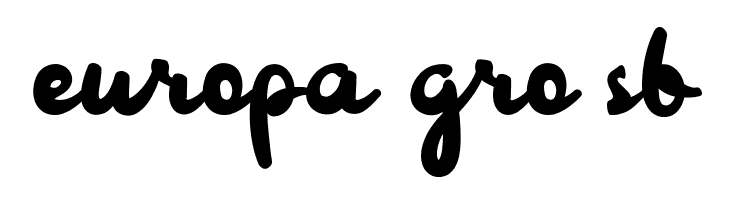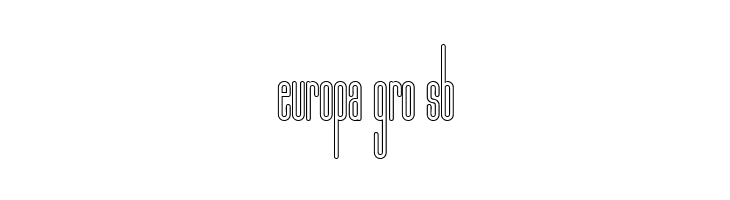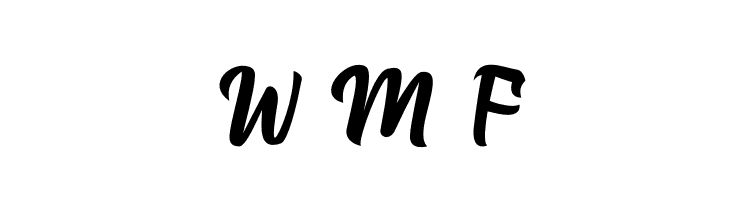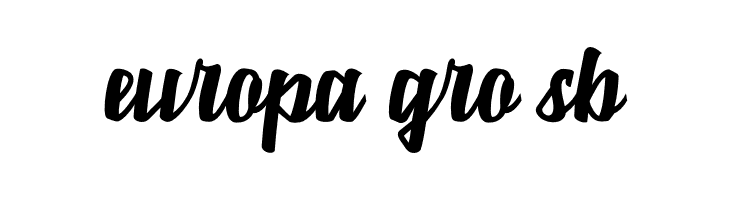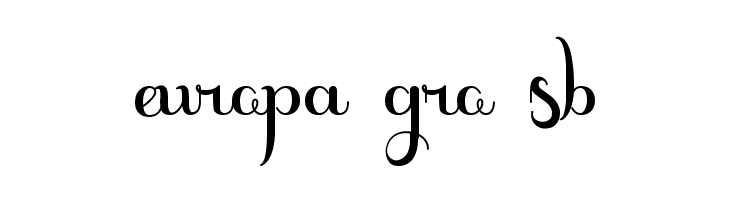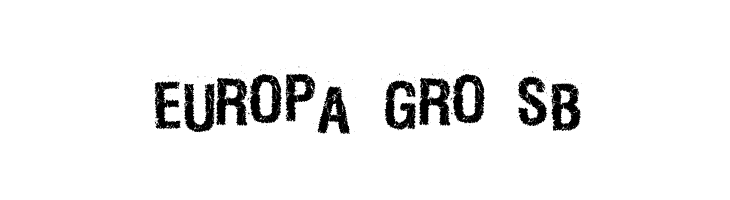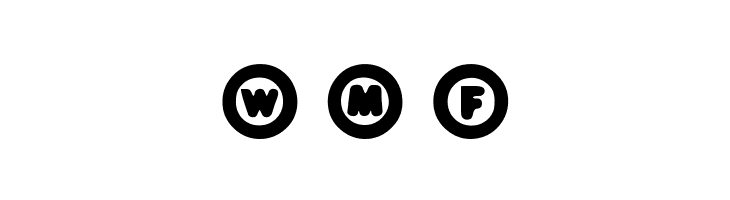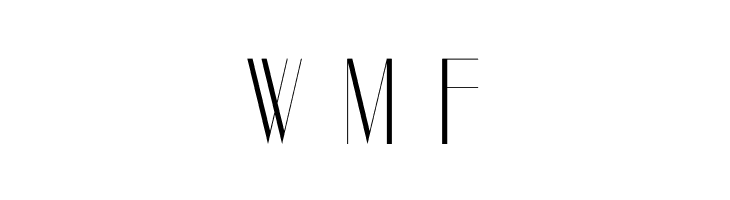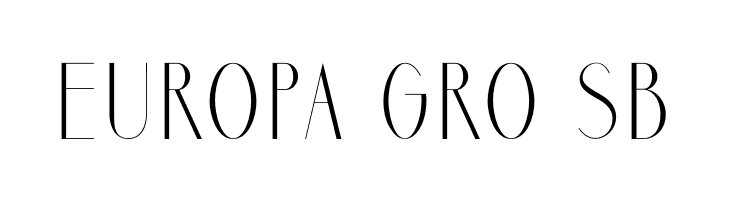
A bold, rounded font with characters enclosed in thick circular outlines.
A tall, narrow, and modern font with a clean, minimalist aesthetic.
A modern, condensed outline font with a sleek, double-line structure.
A playful, handwritten font with rounded edges and a casual, approachable style.
A bold, flowing script font with an elegant, handwritten style.
A bold, textured font with a rugged, distressed appearance.
A bold, flowing script font with elegant curves and medium contrast.
A sleek, modern font with high contrast and elegant, slender characters.
A high-contrast, elegant font with elongated, narrow characters.